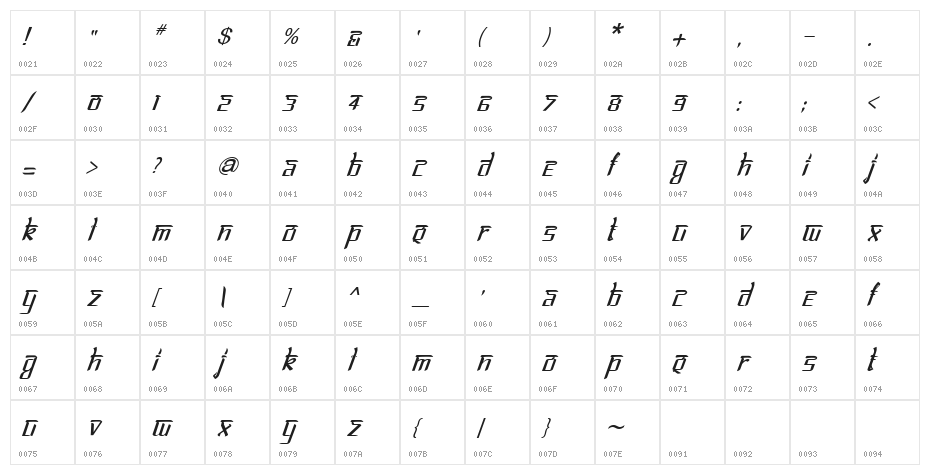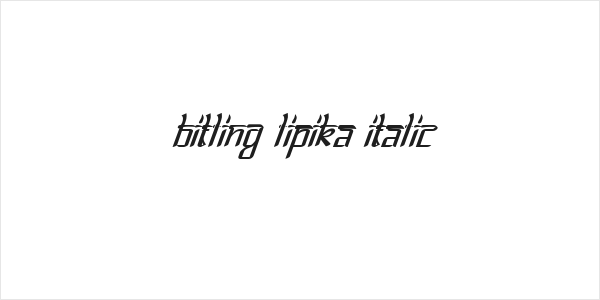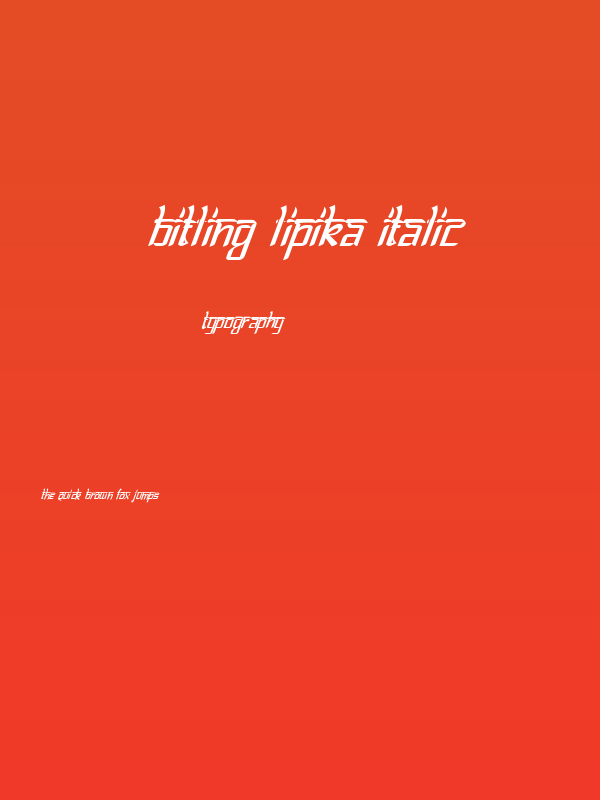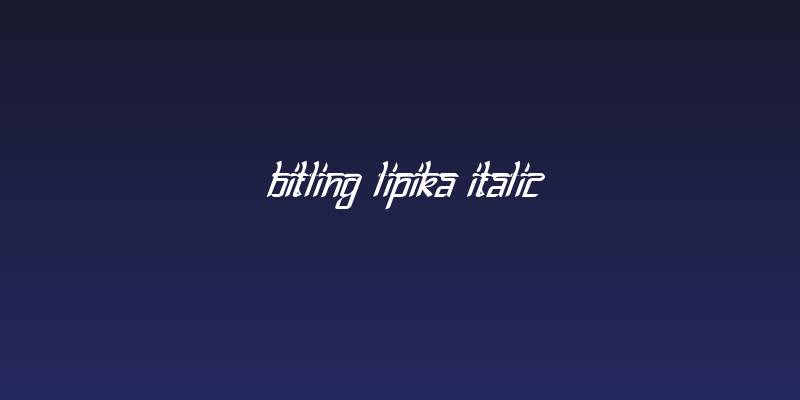
Bitling lipika Italic Font
Bitling lipika Italic Description
This font features a dynamic and angular design, characterized by its italicized and slanted letterforms. The strokes are bold and exhibit a high contrast, giving the font a striking appearance. The characters are tightly spaced, enhancing the compact and energetic feel. The uppercase and lowercase letters maintain a consistent style, with sharp edges and a modern flair. The numerals and special characters follow the same design principles, ensuring uniformity across all glyphs. This font's unique style makes it suitable for creative and impactful designs.
| Proposed Projects | Ideal for branding, poster design, and modern digital artwork where a bold statement is needed. |